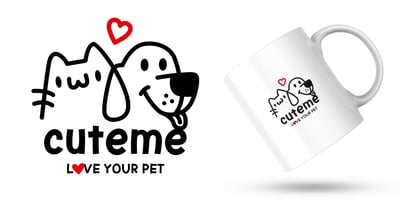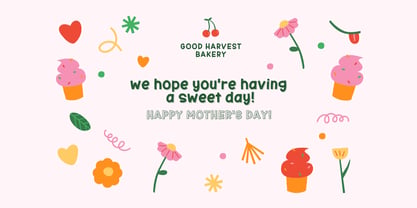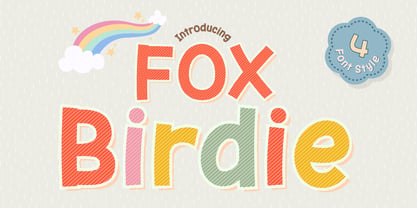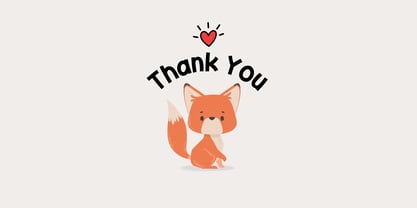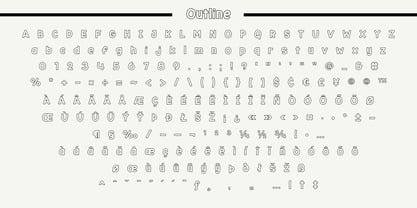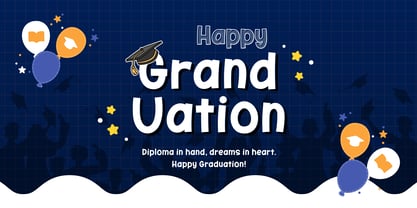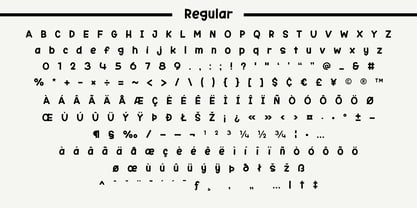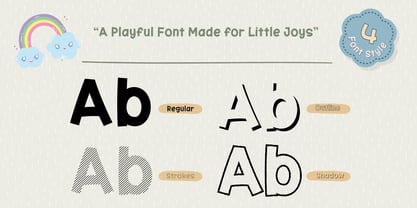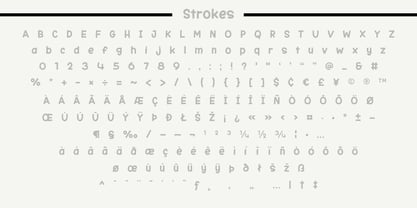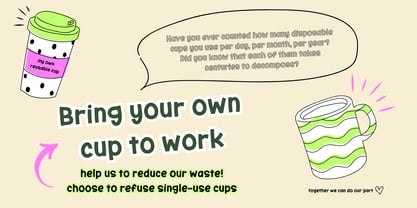
Fox Birdie
The Fox Birdie Font Family was designed by Rattana Rattanawan and published by Fox7. Fox Birdie contains 4 styles and family package options. More about this family
🐦 Fox Birdie – Playful Display Font Family Fox Birdie is a cheerful and playful display font designed to bring little joys into your creative projects. With its soft shapes, hand-drawn feel, and colorful personality, Fox Birdie is perfect for designs that need warmth, fun, and a friendly touch. 🐦 works beautifully for: Kids designs & children’s books Packaging, snack boxes & candy labels Stickers, planners & printable worksheets Posters, quotes & playful branding Social media graphics & invitations Whether you’re creating something sweet, joyful, or full of imagination, Fox Birdie helps your designs feel happy and alive 🌈✨